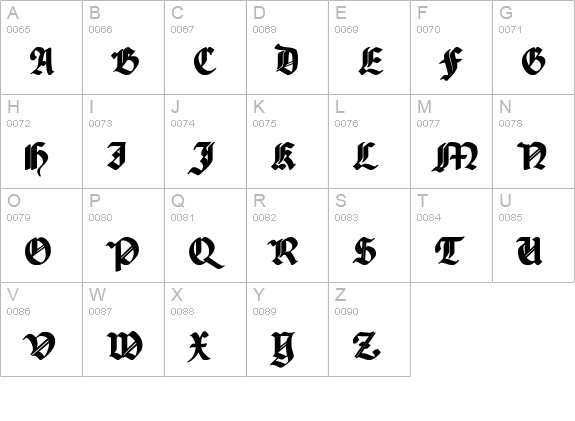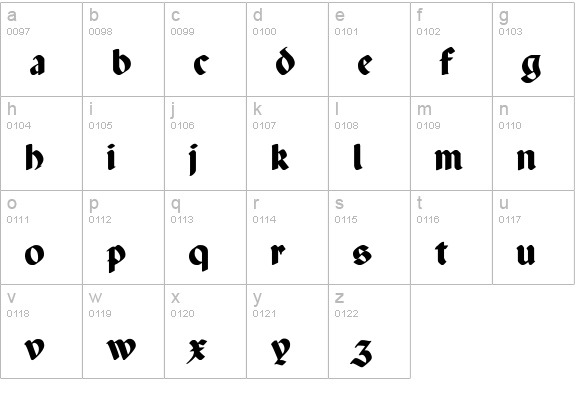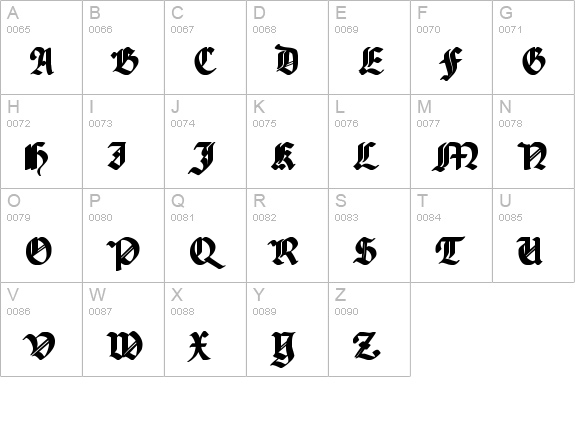
Paganini Th Bold Font Details
Paganini Th Bold is a strong, high-contrast variant in the Paganini typeface family \xE2\x80\x94 well suited to headlines, attention-grabbing titles, and strong calls-to-action.
Introducing Paganini Th Bold, a captivating font that exudes an essence of elegance and sophistication. With its bold and striking appearance, Paganini Th Bold commands attention and adds a touch of drama to any design project. This versatile typeface is perfect for headlines, titles, logos, and other creative endeavors that require a strong visual impact. Its unique combination of sharp edges and smooth curves creates a harmonious balance, making it both modern and timeless. Paganini Th Bold is not only visually stunning but also highly legible, ensuring that your message is conveyed with clarity and confidence. Its bold weight adds weight and prominence to your text, allowing it to stand out in any application. One of the most remarkable aspects of Paganini Th Bold is that it is freely available to download at FontsMarket.com. This means that you can effortlessly access this extraordinary font and enhance your designs without any cost. Whether you are a professional designer or a casual enthusiast, this free font offers you the opportunity to elevate your projects to new heights. Download Paganini Th Bold today and unlock a world of creative possibilities. Embrace its striking aesthetic and unleash your imagination. Let this font become a powerful tool in your design arsenal, enabling you to captivate and engage your audience like never before. With Paganini Th Bold, the possibilities are limitless, and the results are bound to leave a lasting impression.